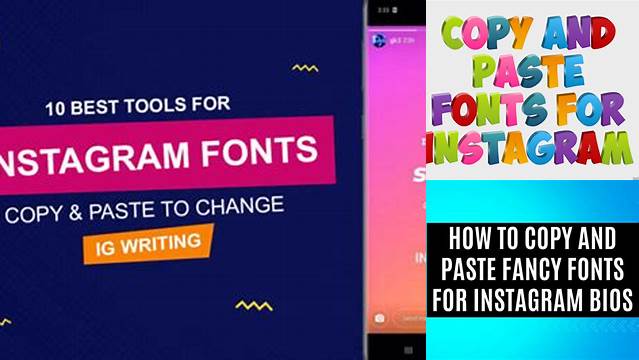
Copy & Paste Fonts For Instagram: Ultimate Guide
Instagram, guys, it's like the ultimate visual playground, right? We're all scrolling through stories, posts, and reels, trying to make our own content stand out from the crowd. And one of the coolest ways to do that? Unique fonts! But let's be real, Instagram's font options are kinda… limited. That's where font generators and copy-paste magic come in! In this guide, we're diving deep into how you can spice up your Insta game with stylish fonts, making your captions, bios, and stories pop like never before.
Why Use Different Fonts on Instagram?
Let's get one thing straight: in the wild world of Instagram, grabbing attention is the name of the game. Your content is battling for eyeballs against a never-ending stream of photos, videos, and stories. So, why stick to the same old fonts everyone else is using? Unique fonts can be your secret weapon to stand out and leave a lasting impression. Think about it – a funky font can instantly convey a mood, highlight a message, or simply make your profile more visually appealing.
Different fonts can seriously boost your Instagram game in a bunch of ways. First off, they're a fantastic tool for branding. Imagine developing a signature font style that aligns with your overall aesthetic. This creates a consistent visual identity that followers can instantly recognize. Using a consistent font style across your posts and stories reinforces your brand and makes your content instantly recognizable. Whether it's a playful handwritten font for a bubbly personality or a sleek, modern typeface for a minimalist brand, your font choices speak volumes. This consistency builds brand recognition and helps followers connect with your content on a deeper level. Different fonts can also help you emphasize key messages in your captions. Got a killer call-to-action or a crucial piece of information? Bolding it is cool, but a standout font? Now you're talking! A carefully chosen font can draw the eye exactly where you want it, ensuring your message doesn't get lost in the scroll. Plus, let's be honest, a fresh font just looks plain cool. It adds a touch of personality and creativity to your profile, showing your followers you're not afraid to think outside the box. Using unique fonts can inject personality and flair into your Instagram presence. It's a subtle yet powerful way to show your creativity and make your content more engaging. By stepping away from the default fonts, you're signaling to your audience that you're paying attention to the details and that you care about the overall aesthetic of your profile.
Understanding Instagram's Font Limitations
Okay, before we jump into the font-tastic world of copy-pasting, let's address the elephant in the room: Instagram's built-in font options. Or, should I say, option. Yeah, Instagram gives you a grand total of, like, a handful of fonts for stories and… well, not much else for captions and bios. It's a bit of a bummer, right? But there's a perfectly good reason for this: consistency. Instagram wants its platform to look and feel uniform, regardless of the device you're using. If everyone could use any font they wanted, things could get pretty chaotic, and some fonts might not even display correctly on certain phones or browsers. Think of it like a global design standard – it ensures everyone has a smooth and predictable experience.
However, this doesn't mean we're stuck with the same old typeface forever! That's where the magic of Unicode comes in. Unicode is basically a universal character encoding system that assigns a unique code to pretty much every character and symbol out there, including a whole bunch of fancy-looking letters that aren't technically fonts, but look like them! This is the secret sauce behind those cool font generators we're going to talk about. These generators use these special Unicode characters to create text that appears to be in a different font, even though it's really just a clever trick. So, while Instagram limits true font choices to maintain consistency, Unicode provides a workaround for those who want to add a little flair to their text. It's a perfect example of how creativity can thrive even within limitations.
How to Copy and Paste Fonts on Instagram: A Step-by-Step Guide
Alright, guys, let's get to the good stuff! You're itching to jazz up your Instagram, and I'm here to show you exactly how to do it. Copy-pasting fonts might sound like some kind of tech wizardry, but trust me, it's super simple. We'll break it down into easy-to-follow steps, so you'll be a font-styling pro in no time.
1. Find a Font Generator
First things first, you'll need a font generator. There are tons of awesome websites and apps out there that can create stylish text for you using those nifty Unicode characters we talked about. Some popular options include LingoJam, Cool Fonts, FontGet, and Meta Tags Font Generator. Just do a quick search for "Instagram font generator," and you'll find a whole bunch to choose from. Each generator might have a slightly different interface, but the basic principle is the same: you type your text, and the generator spits out different font options for you to copy.
2. Type Your Text
Once you've chosen your font generator, it's time to unleash your inner wordsmith. Type the text you want to transform into the input box. This could be anything – your bio, a caption, a story update, you name it. Make sure you've got your message just right, because you're about to give it a whole new look.
3. Choose Your Font
This is where the fun really begins! The font generator will display a variety of font styles based on your text. Scroll through the options and find the one that perfectly matches your vibe. Think about the message you're trying to convey and choose a font that complements it. Are you going for playful and quirky? Bold and impactful? Elegant and refined? There's a font out there for every mood and message.
4. Copy the Text
Found the perfect font? Awesome! Now, simply select the text in your chosen font and copy it. Most generators have a handy "Copy" button that makes this step a breeze. Just click it, and your text will be ready to paste wherever you need it.
5. Paste into Instagram
Now for the grand finale: pasting your stylish text into Instagram. Head over to your Instagram profile, story, or post, and paste the text wherever you want it to appear. This could be your bio, a caption, a story sticker, you name it. Voila! Your text will appear in your chosen font, adding a touch of personality and flair to your content. The ability to copy and paste fonts opens up a world of creative possibilities for your Instagram presence. It allows you to express your unique style and make your content stand out from the crowd.
So there you have it, folks! The ultimate guide to fonts style copy and paste for Instagram. With a little creativity and the help of these awesome font generators, you can transform your Instagram profile from drab to fab in no time. Remember, using different fonts is a fantastic way to express your personality, emphasize your message, and stand out from the crowd. Just follow the tips we've covered, and you'll be rocking stylish fonts like a true Insta pro. Go ahead, unleash your inner font fanatic and make your Instagram shine!